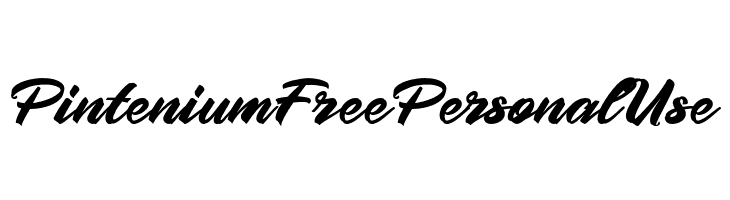
A bold, cursive font with elegant, flowing characters and a dynamic style.
A bold, italic script font with connected letters and a dynamic style.
A bold, expressive script font with fluid, connected letterforms.